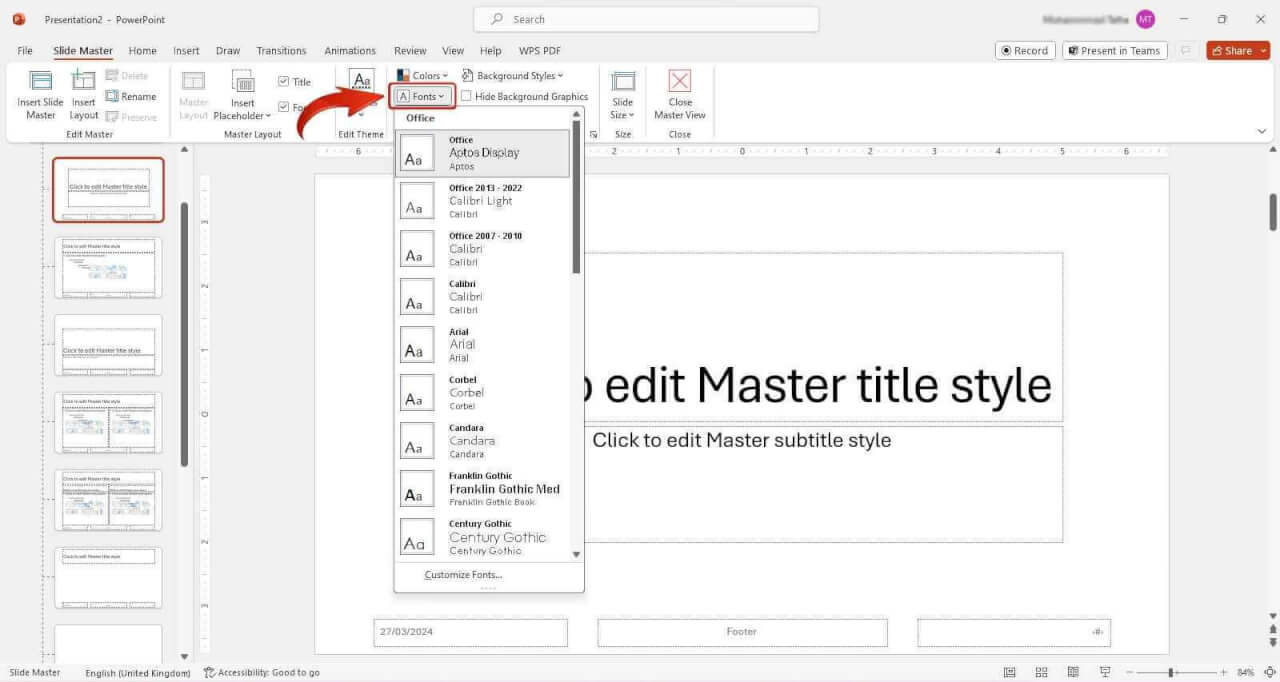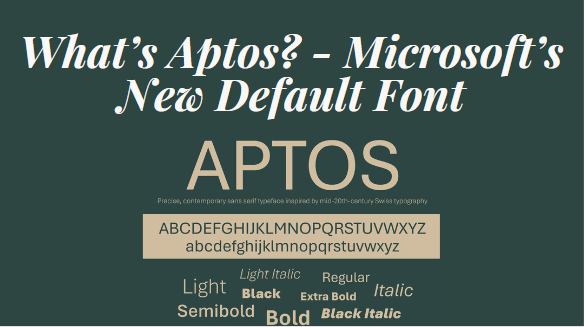
What’s Aptos? - Microsoft’s New Default Font
Calibri, which once served as the default font in Microsoft Office Word, has now had its time. For 15 years, many relied on the Calibri font for their professional, academic, and even creative writings. However, Microsoft Office likely found a better font to replace it, one that offers better resolution, sharpness, uniformity, and is great for display types. Eventually, replacing Calibri with the Aptos font. What does it look like? Why exactly did they replace it? What’s the point of using it? We got it all covered in this article.
What’s Aptos Font?
Microsoft recently introduced Aptos as the newest addition to its font family, marking a significant change in its default font across Word, Outlook, PowerPoint, and Excel. Aptos replaces Calibri, which had been the default font for 15 years. Crafted by Steve Matteson, Aptos embodies professionalism, adaptability, and clarity, with a touch of warmth and humanity.
Types of Aptos Font in Microsoft Office:
• Aptos Regular
• Aptos Italic
• Aptos Bold
• Aptos Bold Italic
What Are the Characteristics of Aptos Font?
These are some of the attributes that make Aptos font stand out from the rest of the fonts offered by Microsoft Office.
• Horizontal and vertical stroke endings inspired by Helvetica, contrasting with Arial's slanted stroke endings.
• Distinctive tail of lowercase letter "a" was removed and added to lowercase letters "l" and "t" to prevent confusion with uppercase letter "I".
• Slightly irregular shapes of uppercase letters "O" and "R" and lowercase letter "a".
• Features a double-story lowercase letter "g" with an angled stem, unlike Helvetica's single-story version.
• Uppercase letter "G" is rounded and lacks a spur.
• Unique swing tail of uppercase letter "R".
• Wide contours of lowercase letters "b", "c", and "p", and uppercase letter "C".
• Circular dots in punctuation marks and lowercase letters "i" and "j", differing from Arial and Helvetica's square dots.
• Curved top flag of numeral "1" and slanted stem of numeral "7" are based on Arial.
• Curved tail of the uppercase letter "Q" meets its bowl.
• Includes characters from Latin, Latin Extended, Greek, and Cyrillic scripts.
• Italics have been individually redrawn, with oblique forms for Cyrillic scripts instead of true italic forms like Calibri.
Why Aptos Replaces Calibri as Microsoft Office's New Default Font?
In short, Aptos was chosen as the new default font for Microsoft Office to provide users with a fresh and modern typography experience, catering to changing preferences and technological advancements. But there’s a little more to it and frankly it all makes sense:
• Outdated Relationship: Microsoft announced its plan to replace Calibri with a new default font in 2021, citing the need for change after 17 years of Calibri's reign.
• Higher Resolution Screens: The advent of higher resolution screens influenced Microsoft's decision to seek a successor to Calibri.
• Font Search and Selection Process: Microsoft considered public feedback on five font finalists before announcing Aptos as the new default font.
• Aptos Characteristics: Aptos, initially known as Bierstadt, was chosen for its versatility and universal appeal, with a slight humanist touch in its design.
• Designer's Inspiration: Aptos was renamed from Bierstadt after designer Steve Matteson's favorite unincorporated town in Santa Cruz, California, reflecting the font's versatility.
• Font Design: Aptos features horizontal and vertical stroke endings, distinct from Calibri's slanted endings, and offers unique letter modifications for improved clarity and readability.
• Classic Design Influence: Aptos' design harkens back to the classic style of the 1960s, reminiscent of Helvetica, with a modern twist.
• Mixed Reactions: Microsoft acknowledged mixed reactions to the font change, recognizing Calibri's enduring popularity and the evolving nature of font preferences over time.